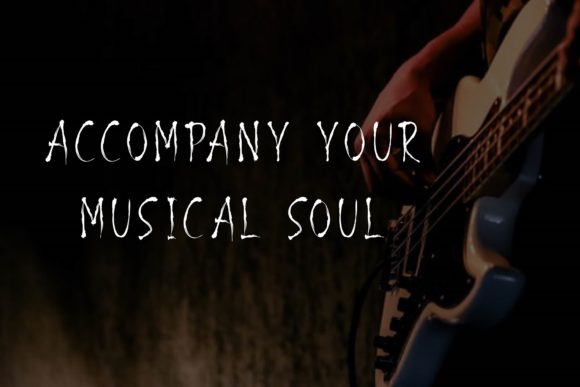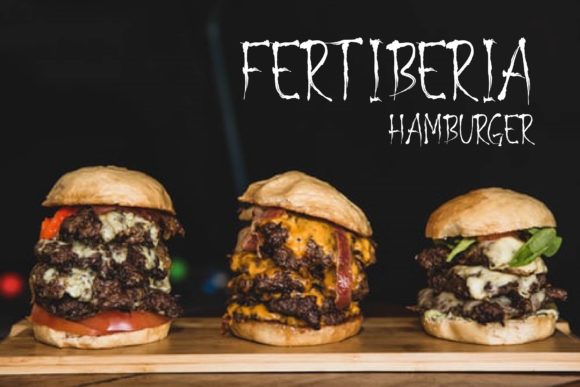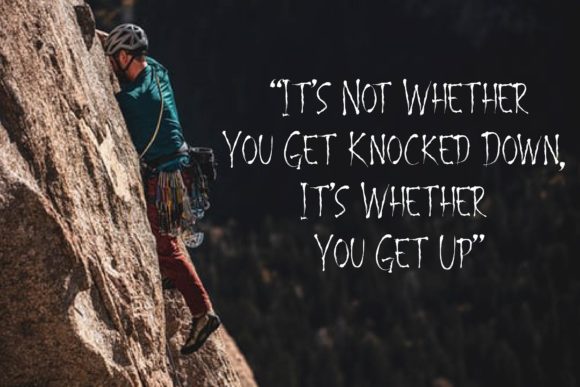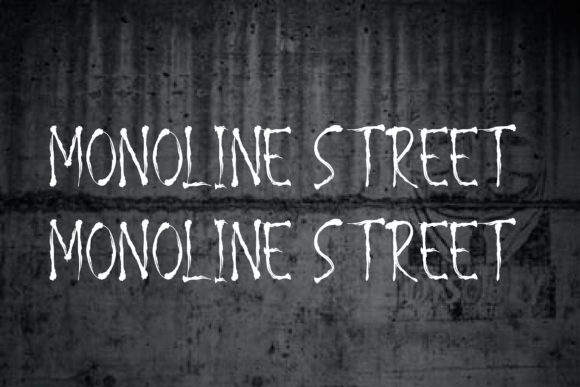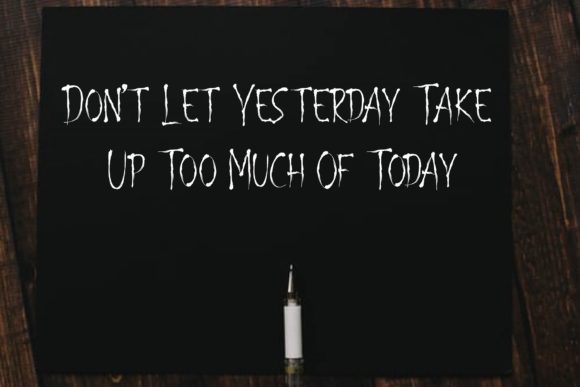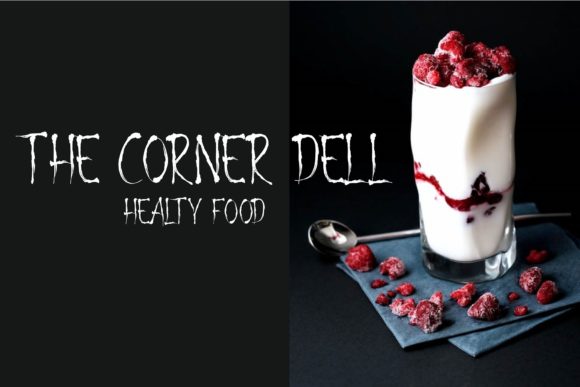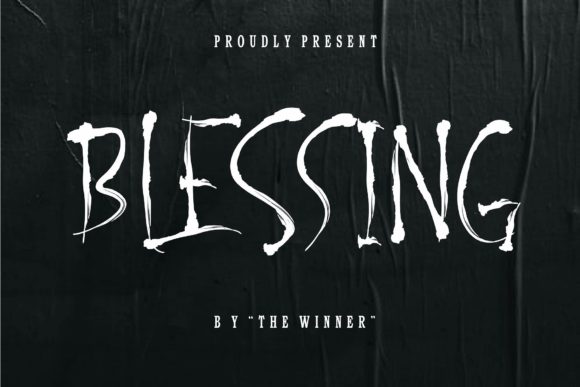
Introducing Blessing: Elevate Your Designs with a Stunning Brush Display Font
In the world of design, fonts play a pivotal role in conveying messages, evoking emotions, and creating lasting impressions. For designers and crafters looking to add a touch of elegance and personality to their projects, Blessing Font is here to revolutionize your creative process. This beautiful brush display font is not just a typeface; it’s an experience that can transform your designs into something truly memorable.
What is Blessing Font?
Blessing Font is a meticulously crafted brush display font designed to bring a unique flair to your design projects. Whether you’re working on branding, product packaging, invitations, quotes, t-shirts, labels, posters, or any logo you wish to develop, Blessing is the perfect companion. Its distinctive brush strokes and fluidity add a personal touch that sets your work apart from the rest.
Key Features of Blessing Font
• Versatility: Blessing Font is incredibly versatile, making it suitable for a wide range of design projects. From digital applications to print materials, this font adapts seamlessly, ensuring your designs look great across all platforms.
• Elegance and Sophistication: The font exudes an air of elegance and sophistication, perfect for designers aiming to create high-end branding, luxury packaging, or stylish invitations.
• Easy to Read: Despite its decorative nature, Blessing Font is surprisingly easy to read, making it an excellent choice for quotes, posters, and any design where message clarity is essential.
• Customizable: For those looking to add a personal touch, Blessing offers ample opportunities for customization. Experiment with different colors, sizes, and creative pairings to make your designs truly unique.
How to Use Blessing Font in Your Designs
Integrating Blessing Font into your design workflow is straightforward. Here are a few ideas to get you started:
• Branding: Use Blessing as a headline font to create stunning logos and brand identities that stand out.
• Product Packaging: Add a personal touch to your product packaging with Blessing, making your products more appealing on store shelves.
• Invitations and Events: Design beautiful invitations, wedding cards, and event posters with a touch of elegance and sophistication.
• T-Shirts and Merchandise: Create eye-catching apparel and merchandise that reflect your brand’s personality or the message you want to convey.
Why Choose Blessing Font?
In a sea of fonts, Blessing stands out for several reasons:
• Unique Design: Its brush script style is both unique and on-trend, ensuring your designs feel fresh and contemporary.
• Time-Saving: With Blessing, you can achieve professional-looking results without spending hours on intricate design work.
Blessing Font is more than just a typeface; it’s a tool that can elevate your designs, making them more attractive and engaging. Whether you’re a professional designer or a crafter, Blessing offers the flexibility and style to bring your creative visions to life. By incorporating Blessing into your design projects, you’re not just choosing a font; you’re choosing to make a statement. So, why settle for ordinary when you can make your designs extraordinary with Blessing?